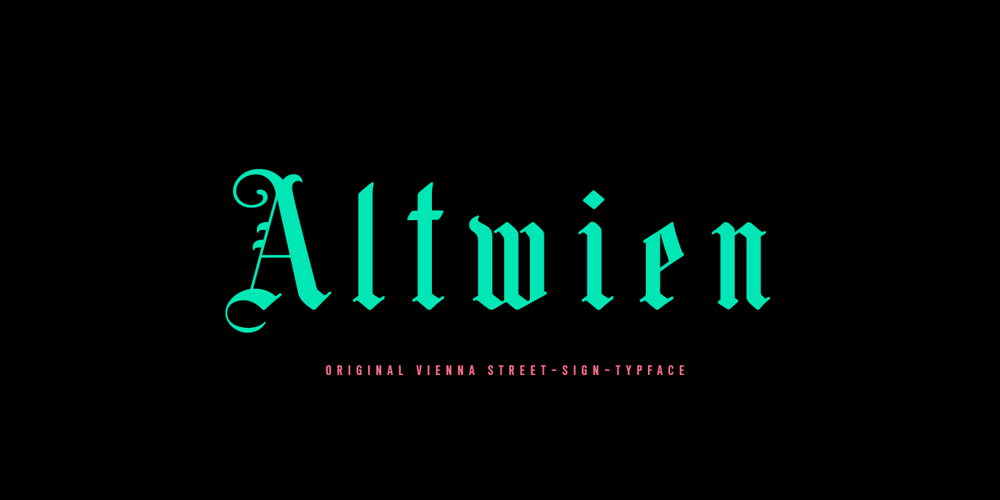
Altwien
Altwien font
Altwien Font Family was designed by Christoph Zeugswetter and published by XTOPH. Altwien contains 1 styles and family package options. Altwien is a blackletter display font. Inspired by the old street-signs of Vienna and Salzburg. It’s a clear and simplistic looking condensed typeface. Put Altwien into a contemporary, fresh or modern context and get a completely new and unique style.